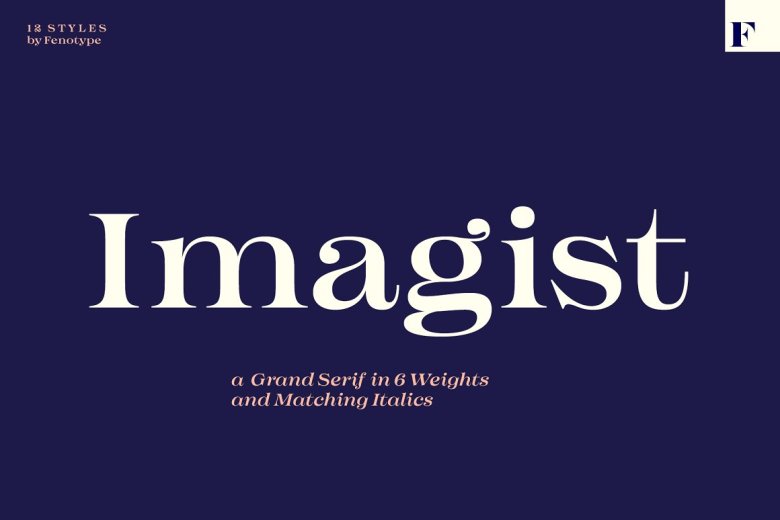
Imagist Font Family
The imaginary typeface Imagist is definitely lively and high-minded one with prominent features visible in the letters K,R, M,N,W,V,‘k,‘w,‘v and ‘y. Potent ball terminals also bring a recognizable attraction to it. Imagist includes six weights and corresponding Italics.Italics all have their typeface changes on letter s, making for more legibility in frequent sequences. Old Style Numerals and Small Caps can be found in all cuts.
Imagist Serif Font Family